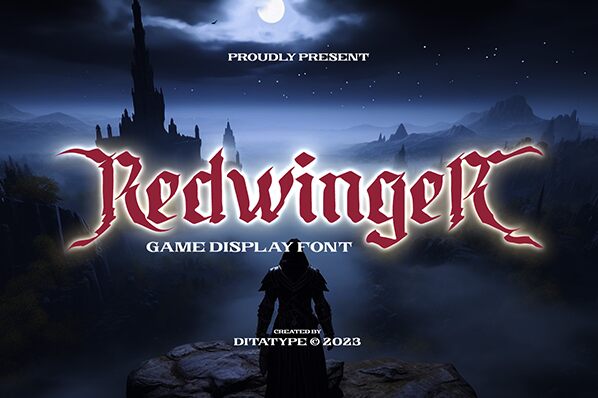
Redwinger font presented by Ditatype is a gothic style typeface with angular modern impressions, ornamental details, and an overall edgy presence. Its design is based on historical and medieval typewriters with transformations that are recognizable yet modern. Angular borders of every letter have an effect of increased legibility despite the unique nature of the gothic font characters.